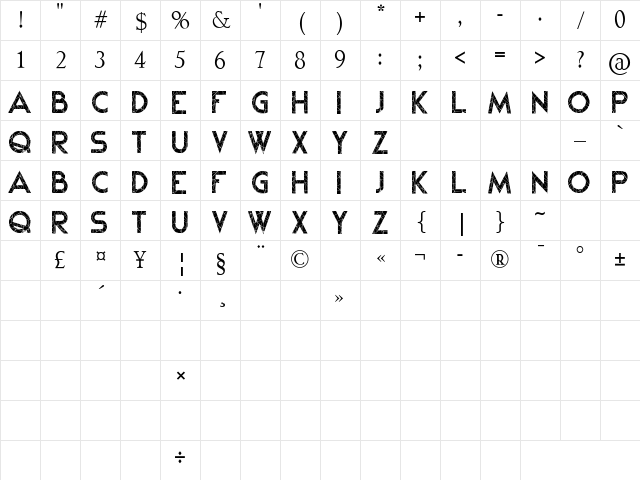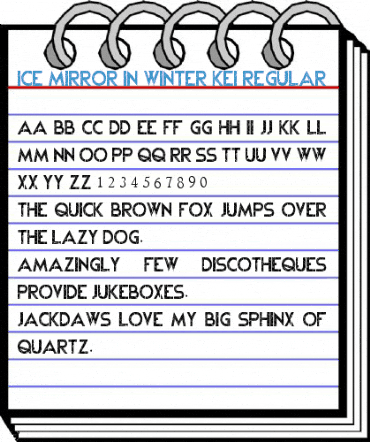
Complete Ice Mirror in Winter Kei Regular glyph index. Displaying only characters natively supported by Ice Mirror in Winter Kei Regular font.
Ice Mirror in Winter Kei is a composed and adaptable typeface that performs quietly and consistently across a wide range of design contexts.
Pro Tip: Use Ice Mirror in Winter Kei in both headline and body roles to test its range before committing to a single application.